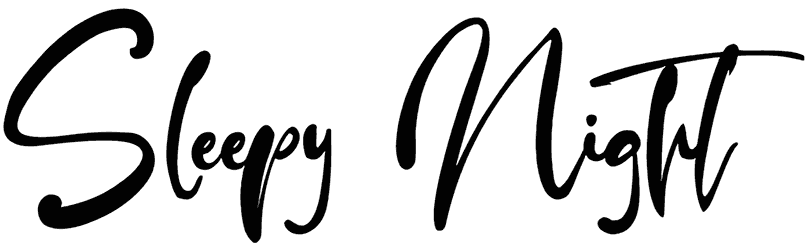
Sleepy Night Font
Chick, whimsical, delicate, and professional are the first impressions that immediately come to mind after looking at your graphic content, designed with the help of a marvelous script font such as Sleepy Night.
This masterpiece features angular letters, making it perfectly suited for a wide range of creative ideas, including social media posts, applications, invitations, gift cards, and book covers. Also, visit the RB collection for daily updates.